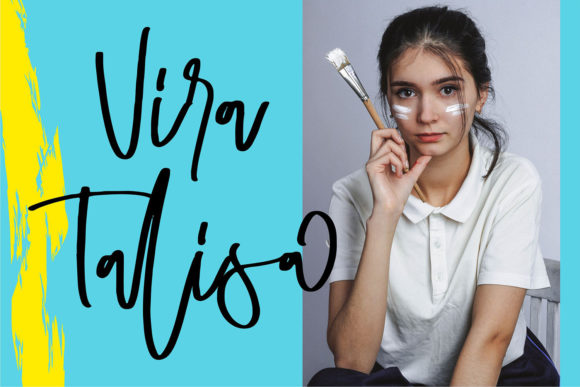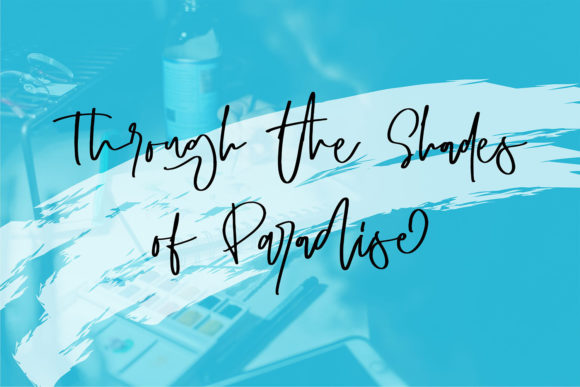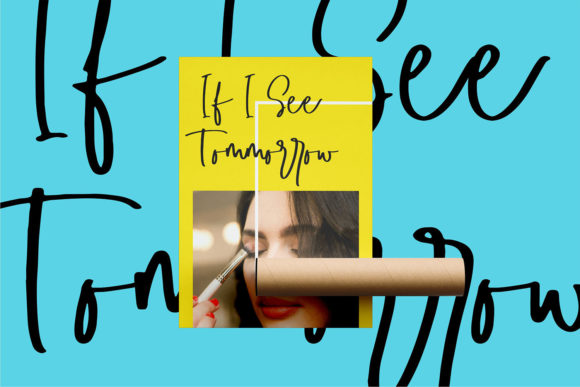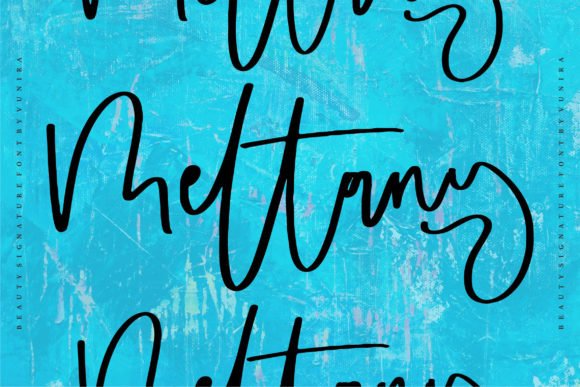
Introduction to Meltany Font
Meltany is a stylish and incredibly elegant script font.
It looks stunning on wedding invitations, thank you cards, quotes, greeting cards, logos, business cards and every other design which needs a handwritten touch This font is PUA encoded which means you can access all of the glyphs and swashes with ease.